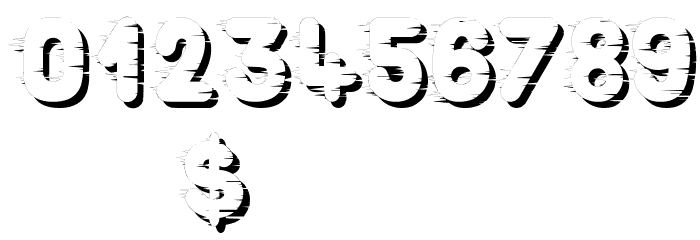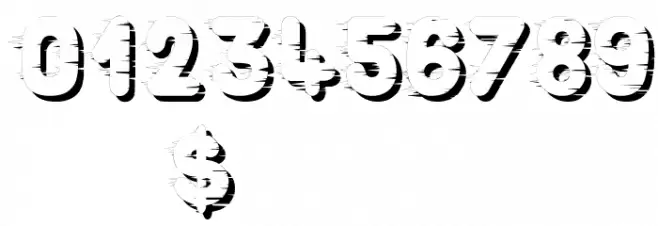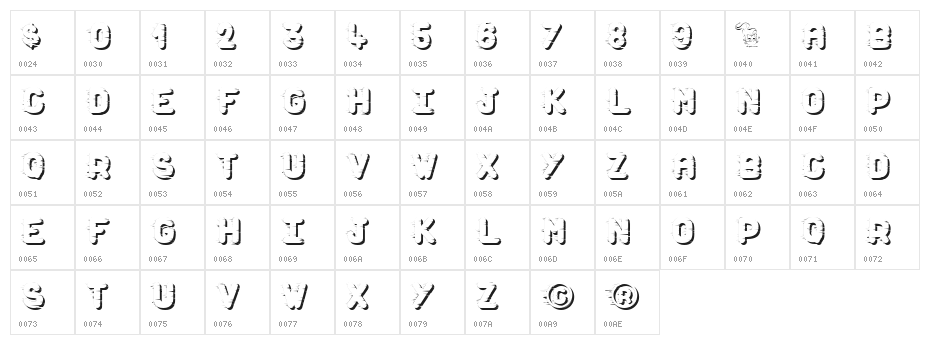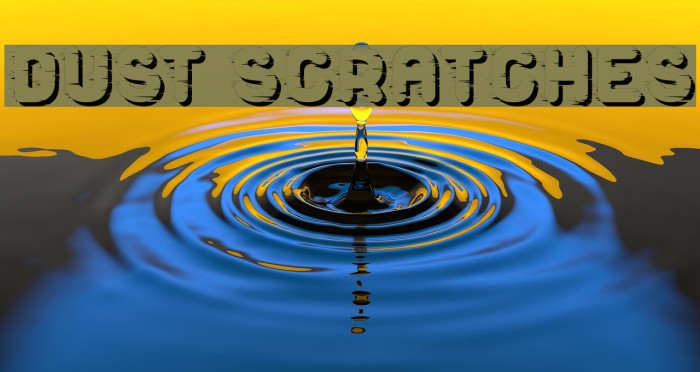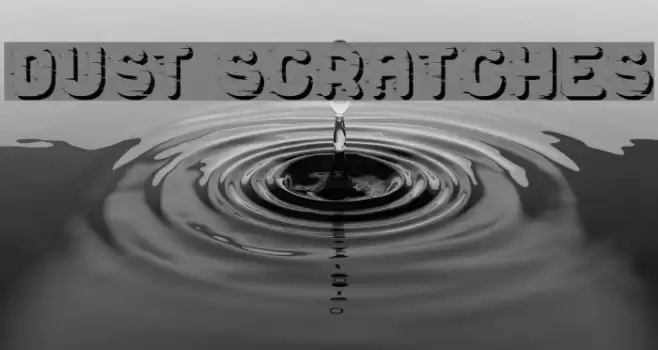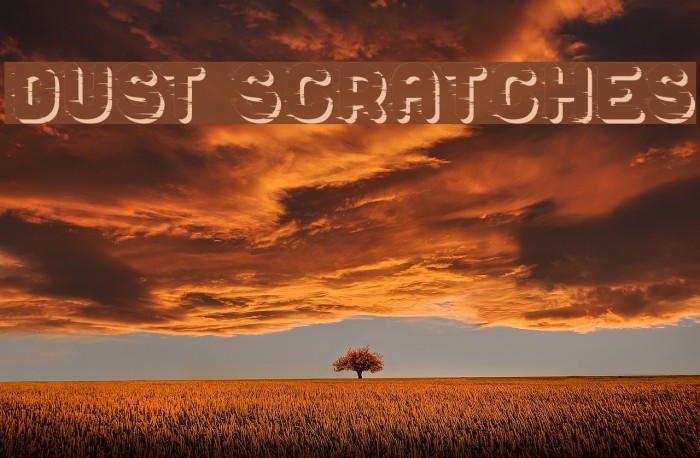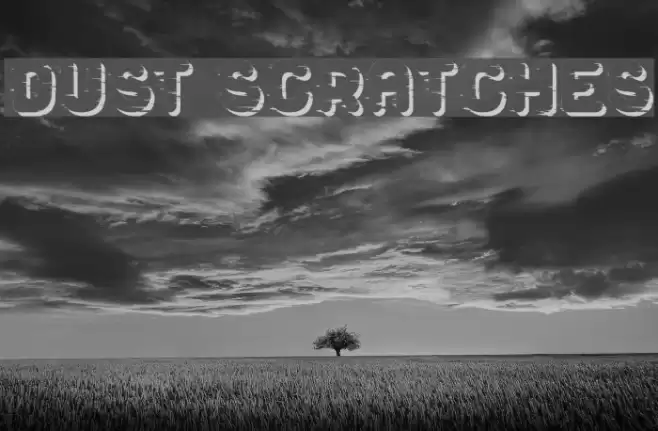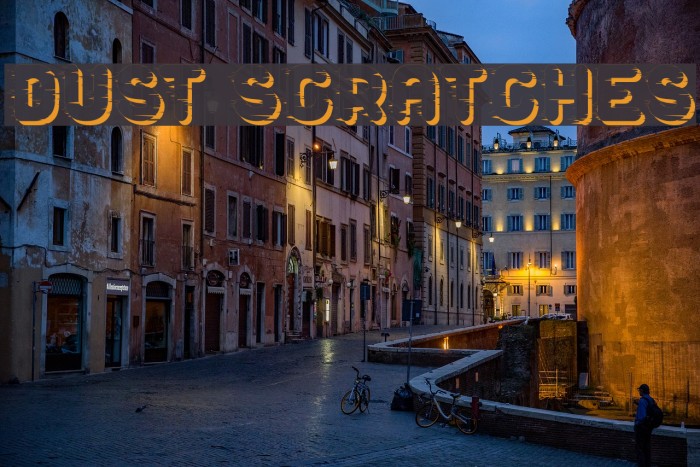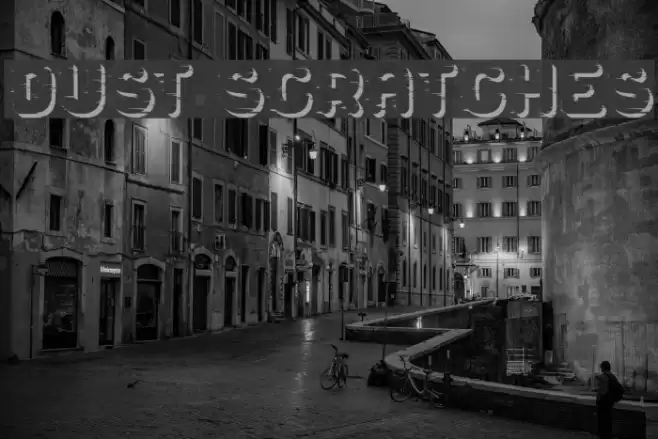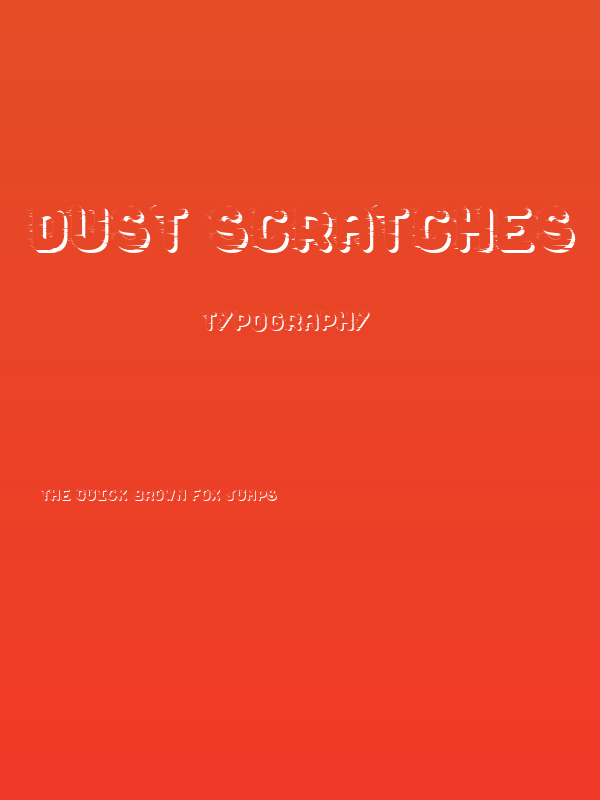
Dust Scratches Font
Dust Scratches Description
This font features a bold and distressed style, characterized by its rough, scratched texture that gives it a worn, vintage appearance. The characters are uppercase and have a consistent thickness, with a slightly rounded, blocky shape. The distressed effect is prominent, adding a sense of age and ruggedness, making it ideal for designs that require a gritty, industrial look. The font maintains legibility despite its textured surface, and the spacing between characters is normal, ensuring readability. The numbers and special characters share the same distressed aesthetic, providing a cohesive look across all glyphs.
| Proposed Projects | Ideal for posters, album covers, branding for rugged or vintage-themed products, and any design needing a gritty, aged look. |